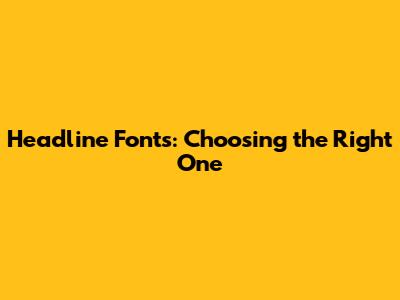
Choosing the right headline font is crucial for grabbing attention and making a strong first impression. Think of your headline as the storefront of your content – it’s the first thing people see, and it determines whether they’ll step inside to explore further. In the realm of typography, a headline font shoulders the significant responsibility of immediately conveying the essence and tone of the piece it introduces. A well-chosen font can signal professionalism, playfulness, seriousness, or any other desired mood. It not only attracts the reader but also sets the stage for the content that follows. The selection process, therefore, requires careful consideration of the message, the target audience, and the overall design aesthetic. Let's dive into how to pick the perfect headline font that not only looks great but also resonates with your audience.
Understanding the Importance of Headline Fonts
Headline fonts play a pivotal role in shaping the reader's perception of your content. They are the visual voice that speaks before the actual words do. The right font can create a sense of anticipation, pique curiosity, and compel the reader to delve deeper. Conversely, a poorly chosen font can be jarring, confusing, or simply fail to capture attention, leading to lost opportunities for engagement. Think about it: you've probably scrolled past countless articles or websites simply because the headline didn't resonate with you. That's the power – and the responsibility – that comes with selecting the right headline font.
First Impressions Matter
In the digital age, where attention spans are shorter than ever, first impressions are paramount. Your headline is often the only chance you have to make a positive impact. A strong, well-chosen font can instantly communicate the value of your content and entice readers to click. Consider the use of bold and striking fonts for impactful news headlines or elegant and refined fonts for sophisticated lifestyle articles. The key is to align the font with the content's theme and purpose to create an immediate connection with the audience. This initial visual cue sets the tone and shapes expectations, making it a critical element in the overall reading experience.
Enhancing Readability and Engagement
Beyond aesthetics, headline fonts also contribute to readability and engagement. A clear, legible font ensures that the message is easily understood, while a visually appealing font keeps the reader interested. The font should be chosen to complement the body text, creating a harmonious reading experience. Factors such as font size, letter spacing, and line height should be carefully considered to optimize readability across different devices and screen sizes. By prioritizing readability, you ensure that your message is not only seen but also understood and appreciated. This, in turn, leads to increased engagement and a higher likelihood of readers returning for more.
Types of Headline Fonts
Navigating the world of headline fonts can feel like wandering through a vast and diverse landscape. There are countless options available, each with its own unique characteristics and personality. To simplify the process, it's helpful to understand the major categories of fonts and their typical applications. Let's explore some of the most popular types of headline fonts:
Serif Fonts
Serif fonts are characterized by the small decorative strokes, or serifs, that extend from the ends of the letters. These fonts are often associated with tradition, authority, and elegance. They tend to convey a sense of trustworthiness and sophistication, making them a popular choice for established brands and formal publications. Common examples of serif fonts include Times New Roman, Georgia, and Garamond. While serif fonts are traditionally used for body text, bolder and more stylized versions can be highly effective for headlines, especially when aiming for a classic or refined look. For instance, a luxury fashion brand might use a sophisticated serif font to convey its heritage and attention to detail. The key is to choose a serif font that is both visually appealing and easy to read, ensuring that it enhances the overall aesthetic without sacrificing clarity.
Sans-Serif Fonts
Sans-serif fonts, as the name suggests, lack the serifs found in their counterparts. These fonts are known for their clean, modern lines and are often associated with simplicity, clarity, and innovation. Sans-serif fonts are a versatile choice for headlines, particularly in digital contexts where readability is paramount. Popular examples include Helvetica, Arial, and Open Sans. These fonts are often used by tech companies, startups, and brands that want to project a forward-thinking image. The absence of serifs gives these fonts a more contemporary feel, making them well-suited for websites, apps, and other digital interfaces. When selecting a sans-serif font for a headline, it's important to consider the weight and style. A bolder weight can create a strong visual impact, while a lighter weight can convey a sense of lightness and elegance. The goal is to choose a font that complements the content and overall design, enhancing the user experience.
Display Fonts
Display fonts are designed specifically for headlines and other large-format applications. These fonts are often more decorative and stylized than serif or sans-serif fonts, allowing for greater creativity and expression. Display fonts can range from bold and impactful to whimsical and playful, offering a wide range of options for capturing attention and conveying a specific mood. Examples of display fonts include script fonts, hand-drawn fonts, and other unique and unconventional typefaces. These fonts are often used in advertising, branding, and other creative contexts where visual impact is essential. When using display fonts, it's important to exercise caution and ensure that the font is legible and appropriate for the target audience. Overly decorative fonts can be difficult to read and may detract from the overall message. However, when used effectively, display fonts can add a unique and memorable touch to your headlines.
Factors to Consider When Choosing a Headline Font
Choosing the right headline font involves careful consideration of several key factors. It’s not just about picking a font that looks good; it’s about selecting a font that aligns with your brand, resonates with your audience, and enhances the overall message. Let's explore some of the most important factors to keep in mind:
Brand Identity
Your headline font should be consistent with your brand identity. Think about the overall tone and personality of your brand. Is it serious and professional, or playful and creative? Your font choice should reflect these qualities. For example, a law firm might opt for a classic serif font to convey authority and trustworthiness, while a children's toy company might choose a fun and whimsical display font. Consistency in font usage across all your marketing materials helps to create a cohesive brand image and reinforces brand recognition. When selecting a headline font, consider how it will work with your logo, color palette, and other visual elements. The goal is to create a unified and harmonious brand experience that resonates with your target audience and reinforces your brand values.